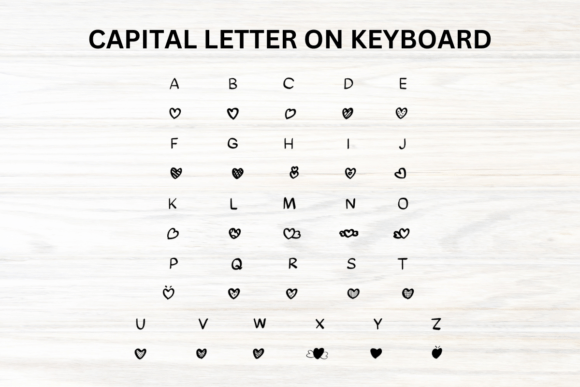
Introducing Heart Font: The Perfect Handwritten Dingbats Font for Creative Projects
Are you a designer, crafter, or simply someone who loves to take notes and plan their day? Look no further than Heart Font, a beautiful handwritten dingbats font that’s perfect for adding a personal touch to your creative projects. In this article, we’ll explore the features and benefits of Heart Font, and show you how to make the most of this versatile and charming font.
What is Heart Font?
Heart Font is a hand-written dingbats font that’s designed to add a touch of personality to your notes, lectures, and creative projects. Unlike traditional fonts, dingbats fonts feature symbols, icons, and other graphical elements rather than letters and numbers. Heart Font is a unique and stylish addition to any project, with a range of heart-themed designs that are sure to delight.
Features of Heart Font
So, what makes Heart Font so special? Here are just a few of its key features:
- Handwritten style: Heart Font has a warm, handwritten feel that’s perfect for adding a personal touch to your projects.
- Heart-themed designs: As its name suggests, Heart Font features a range of heart-themed designs, from simple hearts to more complex and intricate patterns.
- Versatile: Heart Font is perfect for a wide range of projects, from notes and lectures to planners, journals, and more.
Uses for Heart Font
So, how can you use Heart Font in your creative projects? Here are just a few ideas to get you started:
- Notes and lectures: Add a touch of personality to your notes and lectures with Heart Font’s range of heart-themed designs.
- Planners and journals: Use Heart Font to create beautiful and functional planners and journals that are perfect for daily use.
- Creative projects: Heart Font is perfect for a wide range of creative projects, from scrapbooking and card making to craft projects and DIY tutorials.
- Digital art: Use Heart Font to add a touch of whimsy and personality to your digital art projects, from illustrations to graphic designs.
Tips for Using Heart Font
Here are a few tips for getting the most out of Heart Font:
- Experiment with different sizes and colors: Heart Font looks great in a range of sizes and colors, so don’t be afraid to experiment and find the look that works best for your project.
- Combine with other fonts: Heart Font pairs well with a range of other fonts, so try combining it with your favorite fonts to create a unique and stylish look.
- Use it sparingly: Heart Font is a bold and eye-catching font, so use it sparingly to add emphasis and interest to your projects.
Heart Font is a beautiful and versatile handwritten dingbats font that’s perfect for designers, crafters, and anyone who loves to take notes and plan their day. With its range of heart-themed designs and easy-to-use style, Heart Font is sure to become a favorite in your design toolkit. So why not give it a try and see how you can use Heart Font to add a touch of personality to your creative projects?
- What is a dingbats font?: A dingbats font is a type of font that features symbols, icons, and other graphical elements rather than letters and numbers.